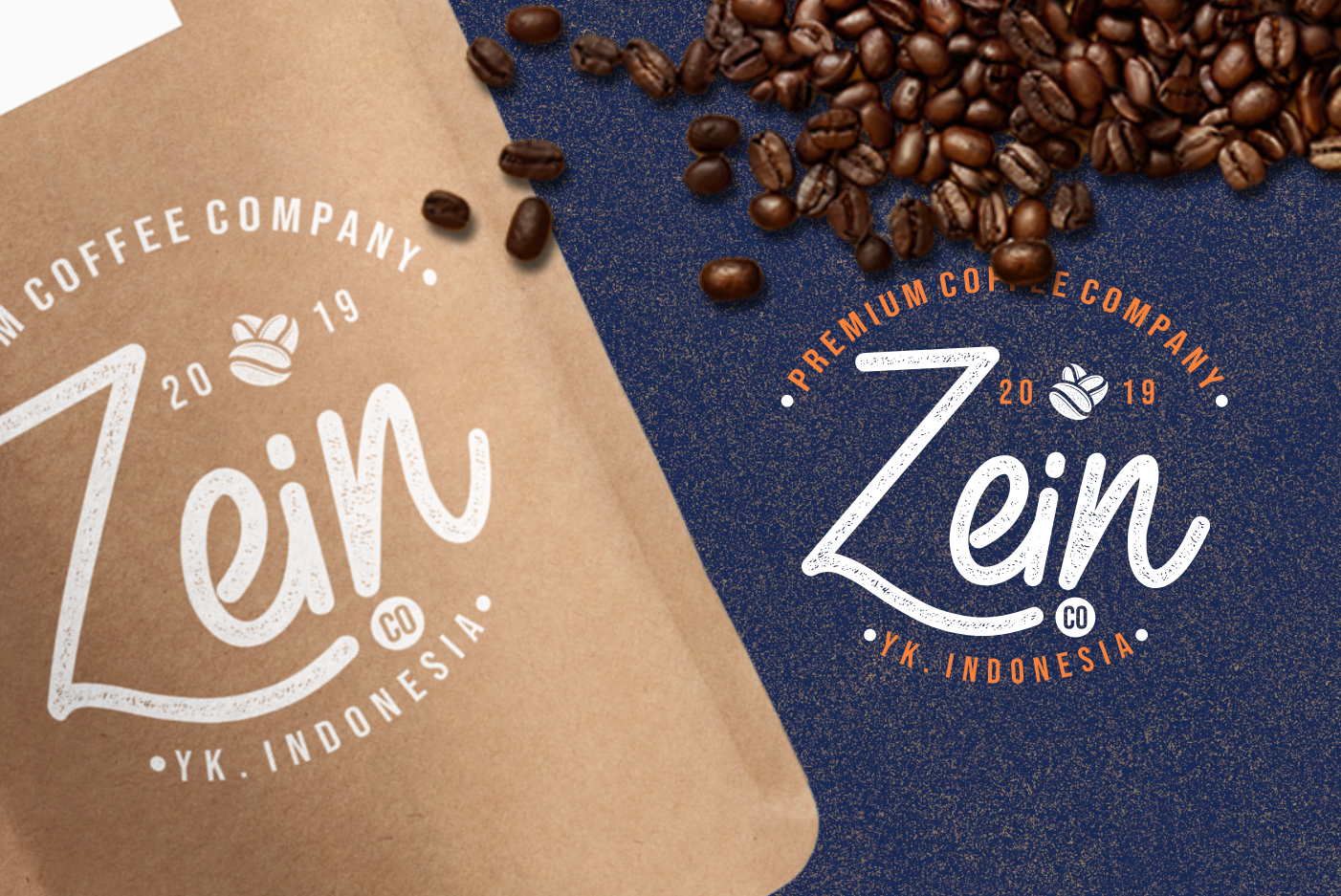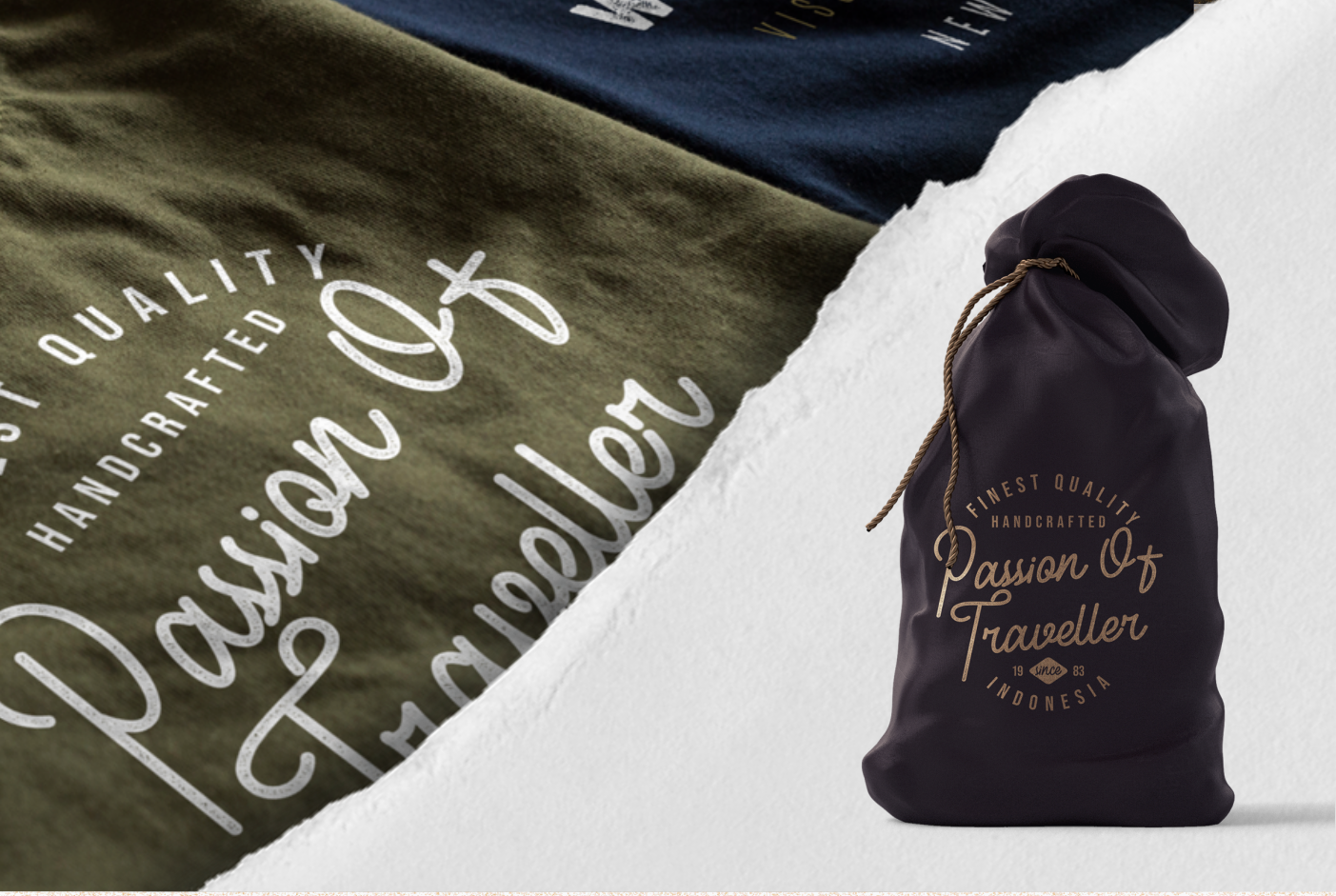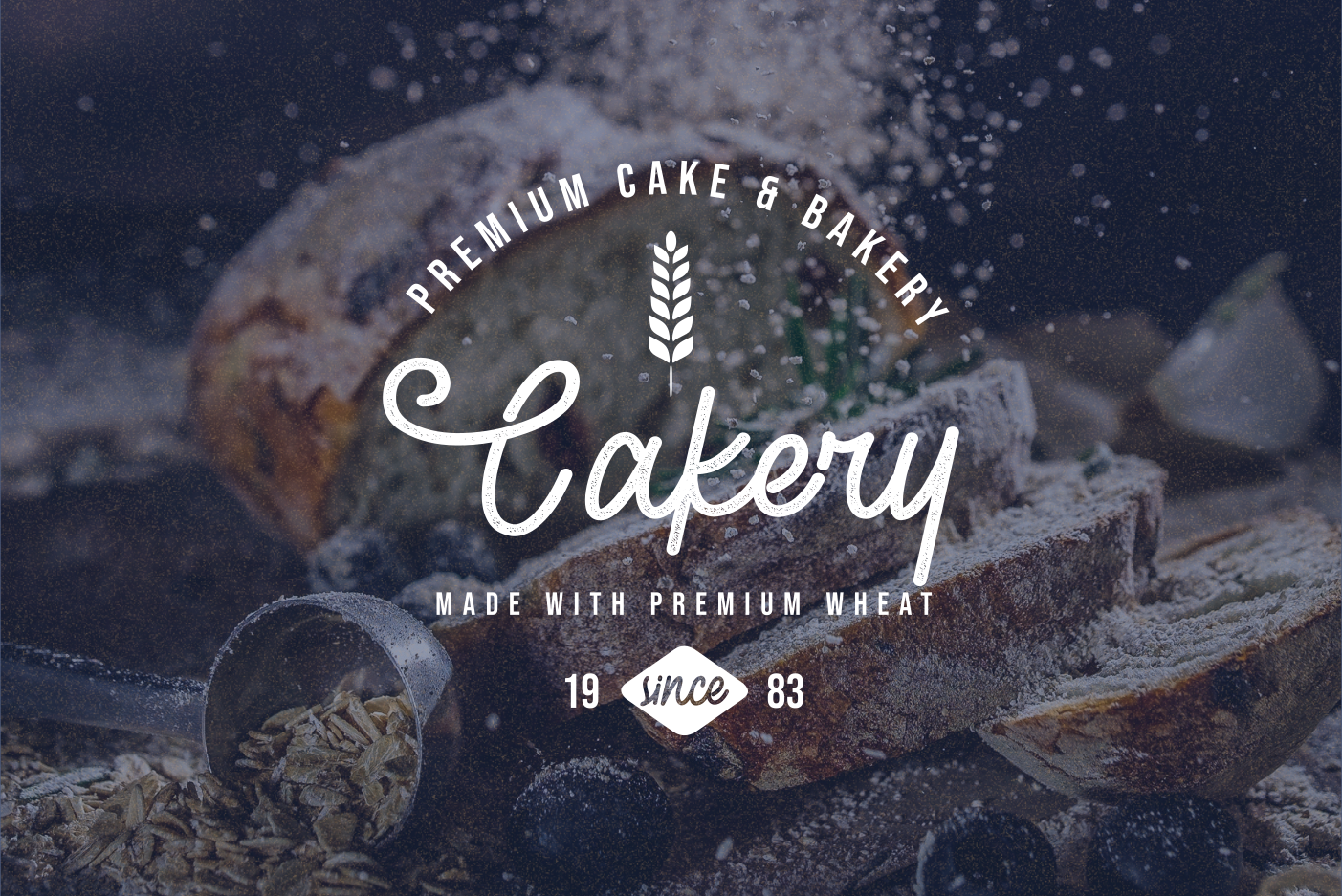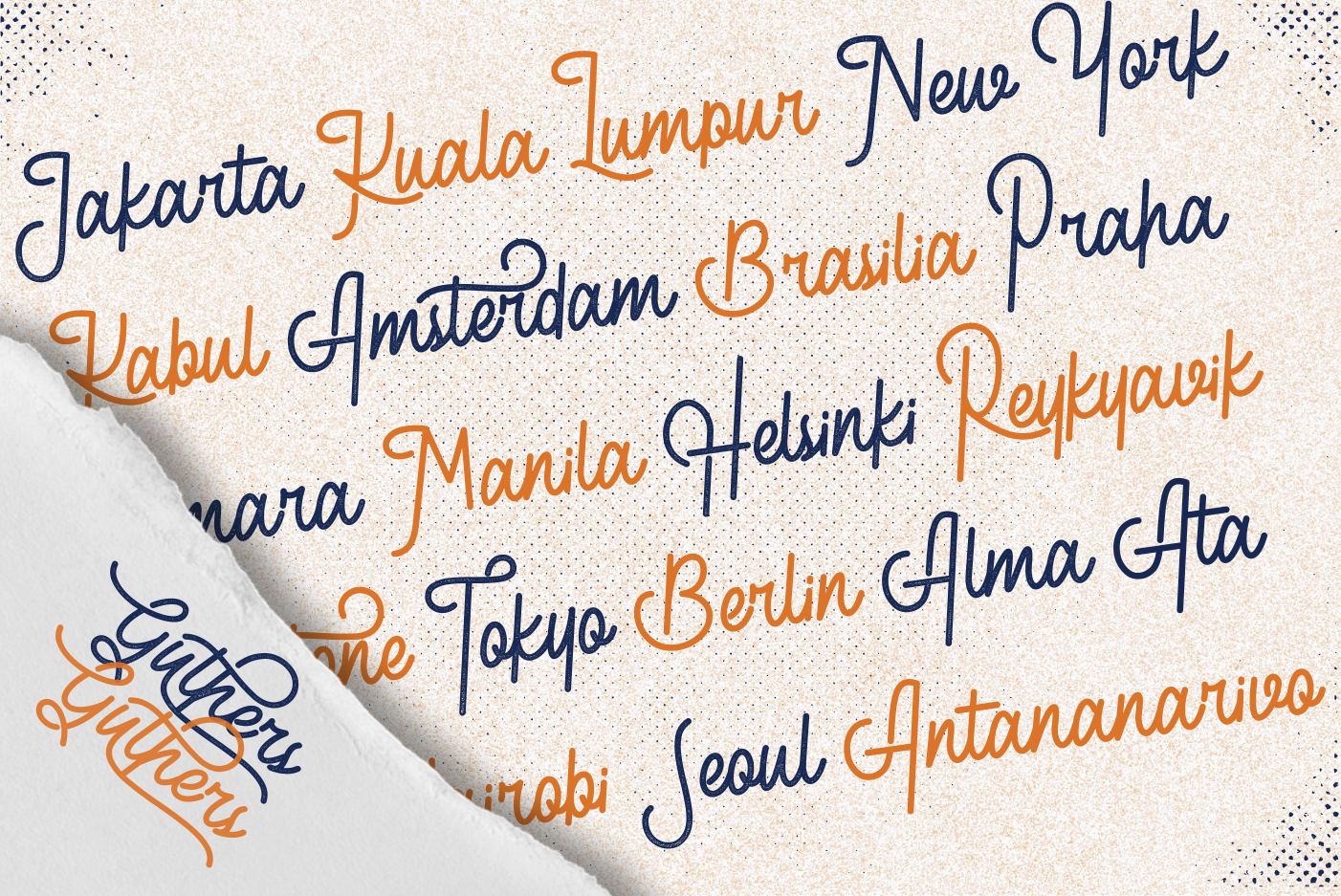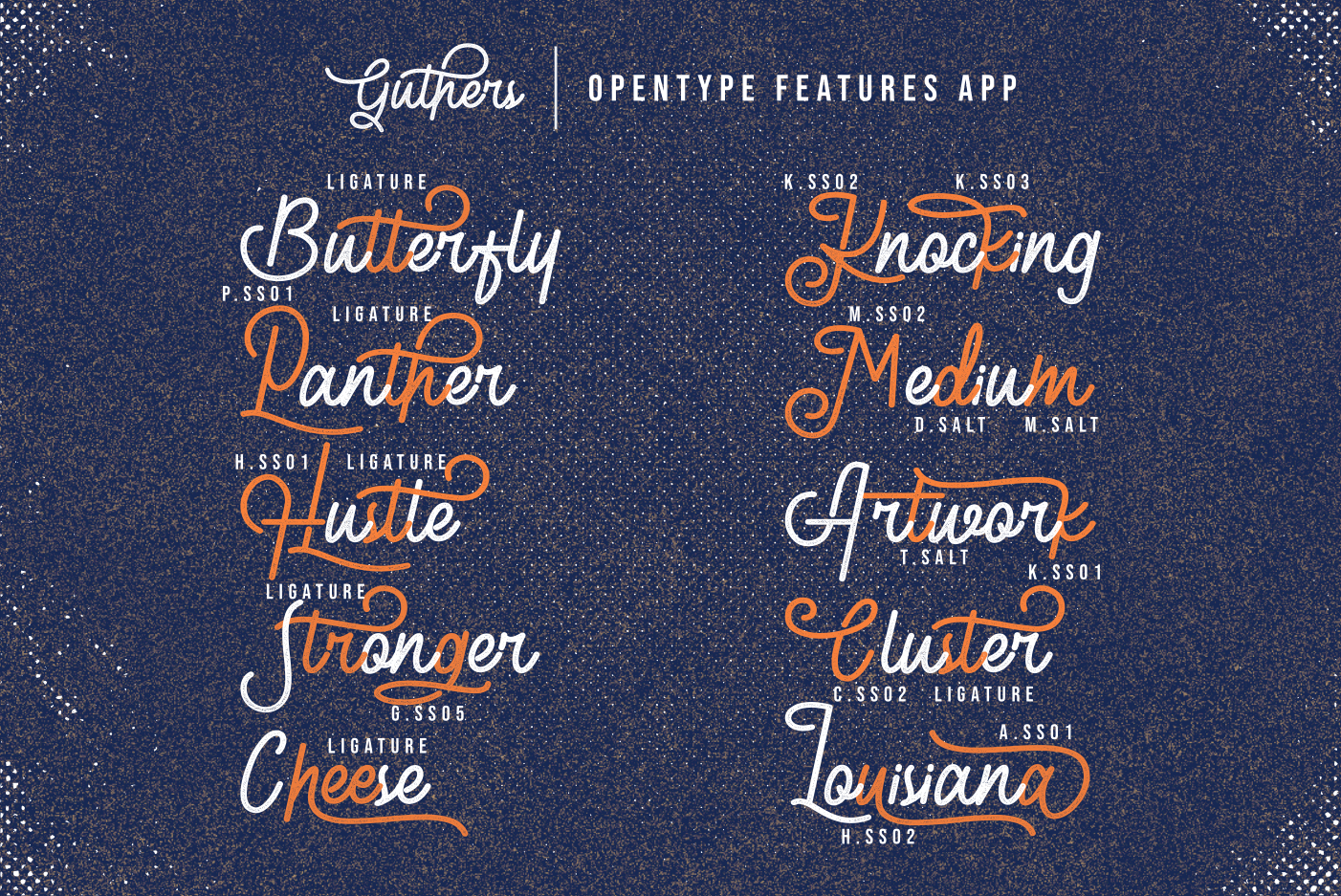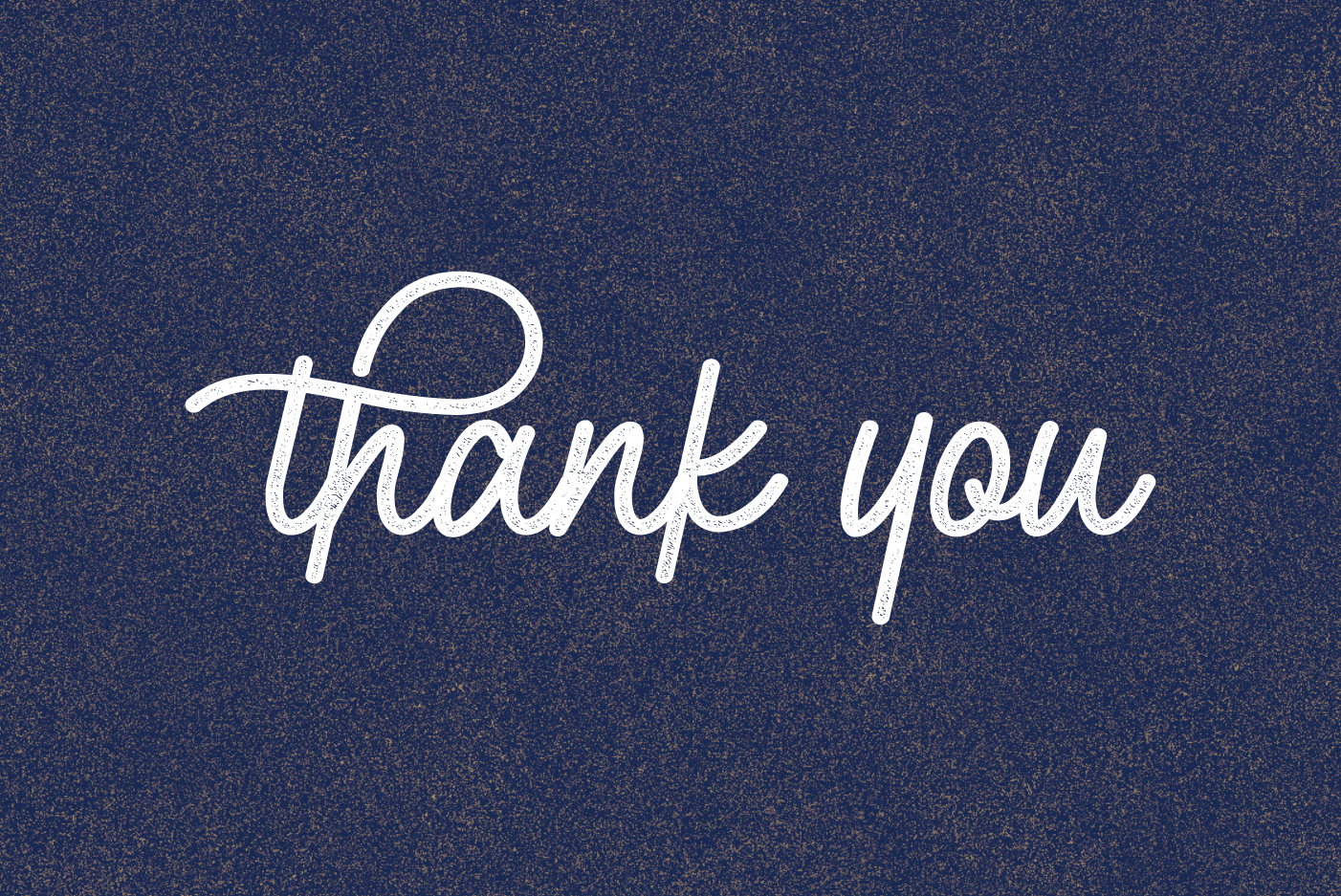
Guthers - Monoline Script Font
Introducing, Guthers, monoline script font. Perfect for logotype, headline, apparels, quotes, posters, labels with vintage and exclusive feels.
1. Uppercase and lowercase characters
2. Supports international languages
3. Features: Uppercase, Lowercase, numeral & punctuation, multilanguage, stylistic alternates, and ligatures